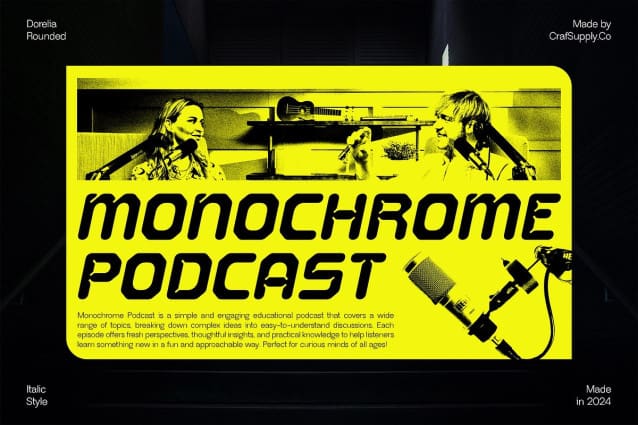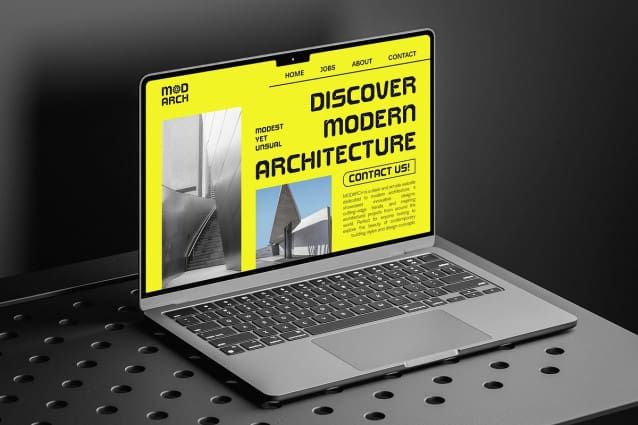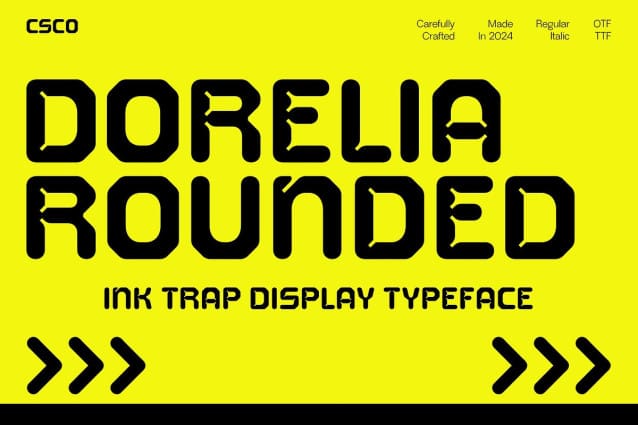
Dorelia Rounded Font
Dorelia Rounded Font is a modern display font that blends bold shapes with techno-inspired elements, making it a standout choice for technology projects and contemporary branding. Its distinctive inktraps and rounded corners give the font a futuristic yet approachable aesthetic, ensuring both visual strength and smoothness. The combination of these features creates a striking balance, perfect for designs that need to communicate innovation and modernity.
Ideal for Tech and Digital Projects With its bold and futuristic design, Dorelia Rounded is tailored for technology-related projects, digital interfaces, and cutting-edge branding efforts. The font’s strong geometric forms paired with softened edges make it suitable for a variety of applications, from tech startups and gaming platforms to futuristic product packaging. Its clean yet powerful appearance ensures that it stands out in a crowded digital landscape, grabbing attention while maintaining a sleek and professional look.
Unique Blend of Boldness and Smoothness The integration of inktraps with rounded shapes gives Dorelia Rounded a unique and captivating impression. The inktraps add an element of precision and functionality, ensuring clear readability even at smaller sizes, while the rounded corners soften the overall appearance, adding a sense of balance. This combination makes it a versatile choice, perfect for designs that require both strength and approachability.